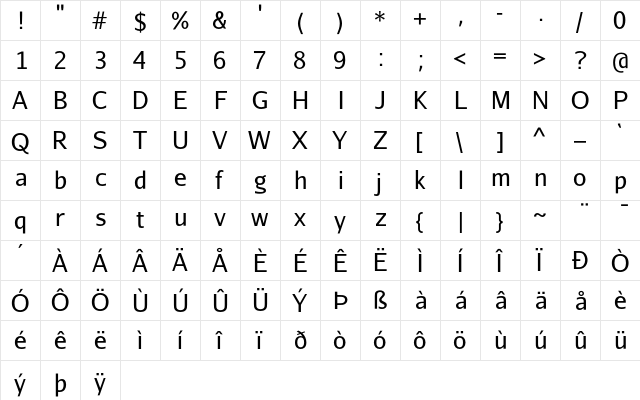
Aurulent Sans Regular
Design Context for Aurulent Sans Typeface
Aurulent Sans takes a measured approach to typography — its balanced proportions and neutral character make it a reliable workhorse for both digital and print work.